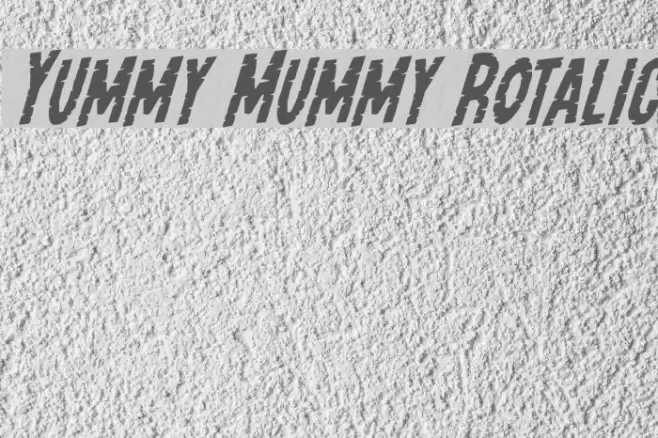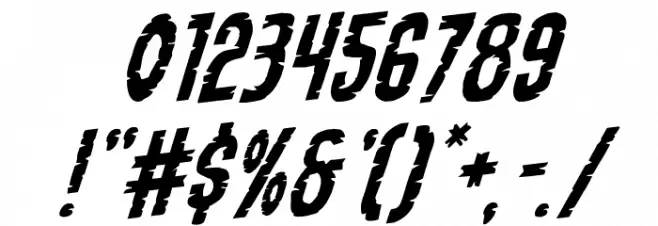
Yummy Mummy Rotalic Font
Yummy Mummy Rotalic Description
This font features a bold, dynamic style with a distressed, textured appearance that gives it a rugged, edgy look. The characters are slanted, adding a sense of motion and urgency. The uppercase and lowercase letters maintain a consistent style, with sharp angles and irregular edges that create a sense of chaos and energy. The numbers and special characters follow the same design principles, ensuring a cohesive look across all elements. This font is ideal for projects that require a strong, impactful visual presence.
A bold, distressed font with a slanted, dynamic style from Uncategorized fonts.
- Proposed Projects: Perfect for posters, album covers, video game titles, and branding that requires a bold, edgy aesthetic.
- Overall Style: Modern, Edgy